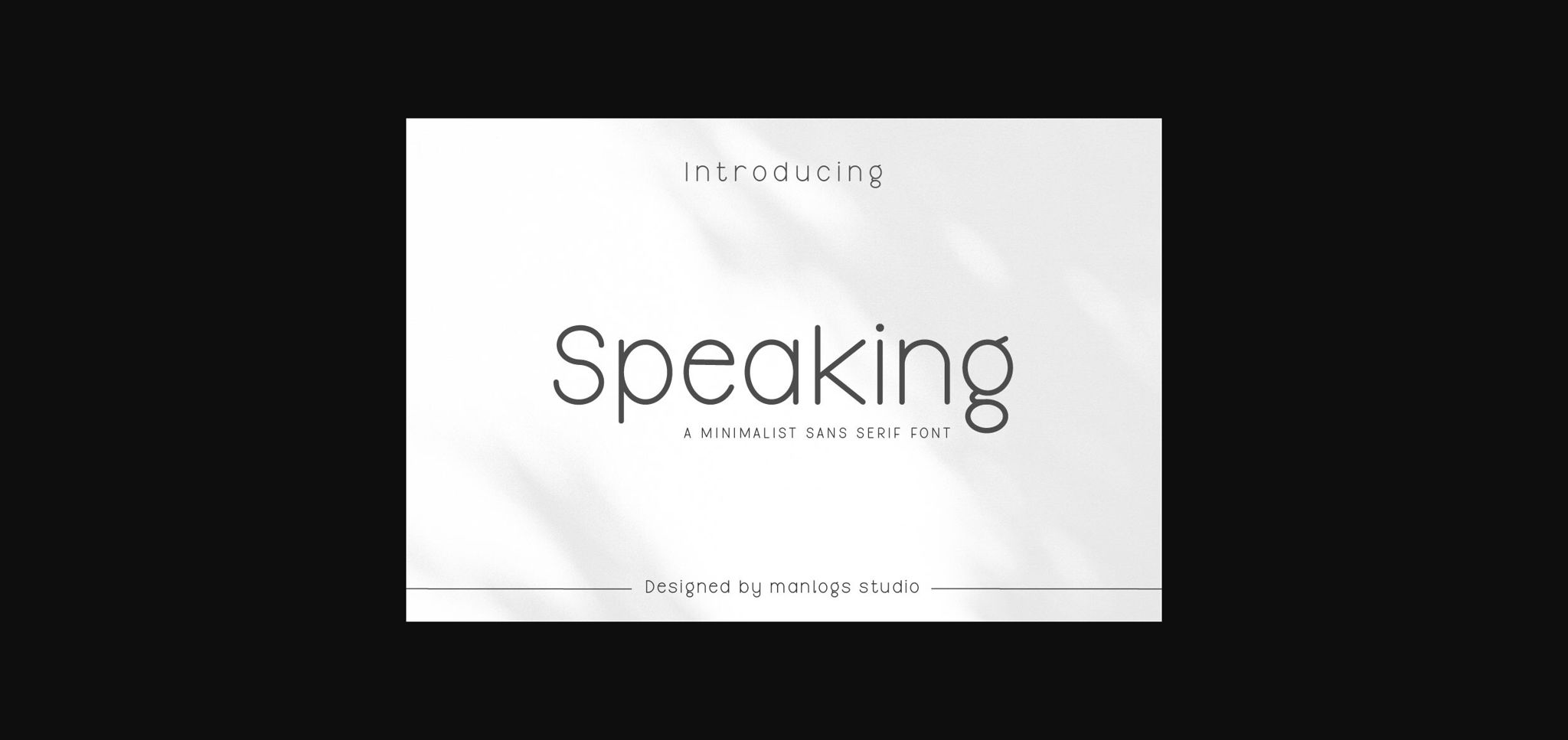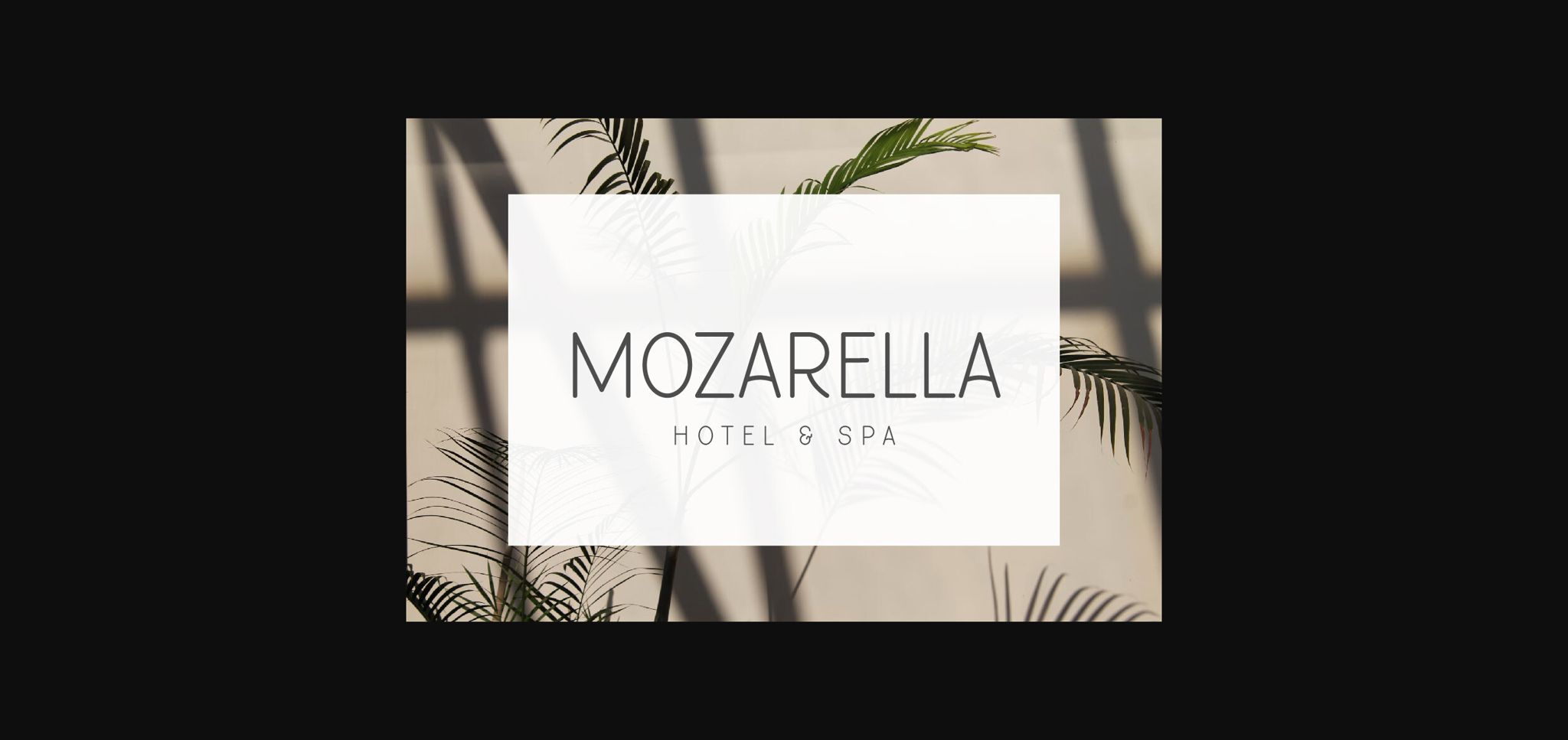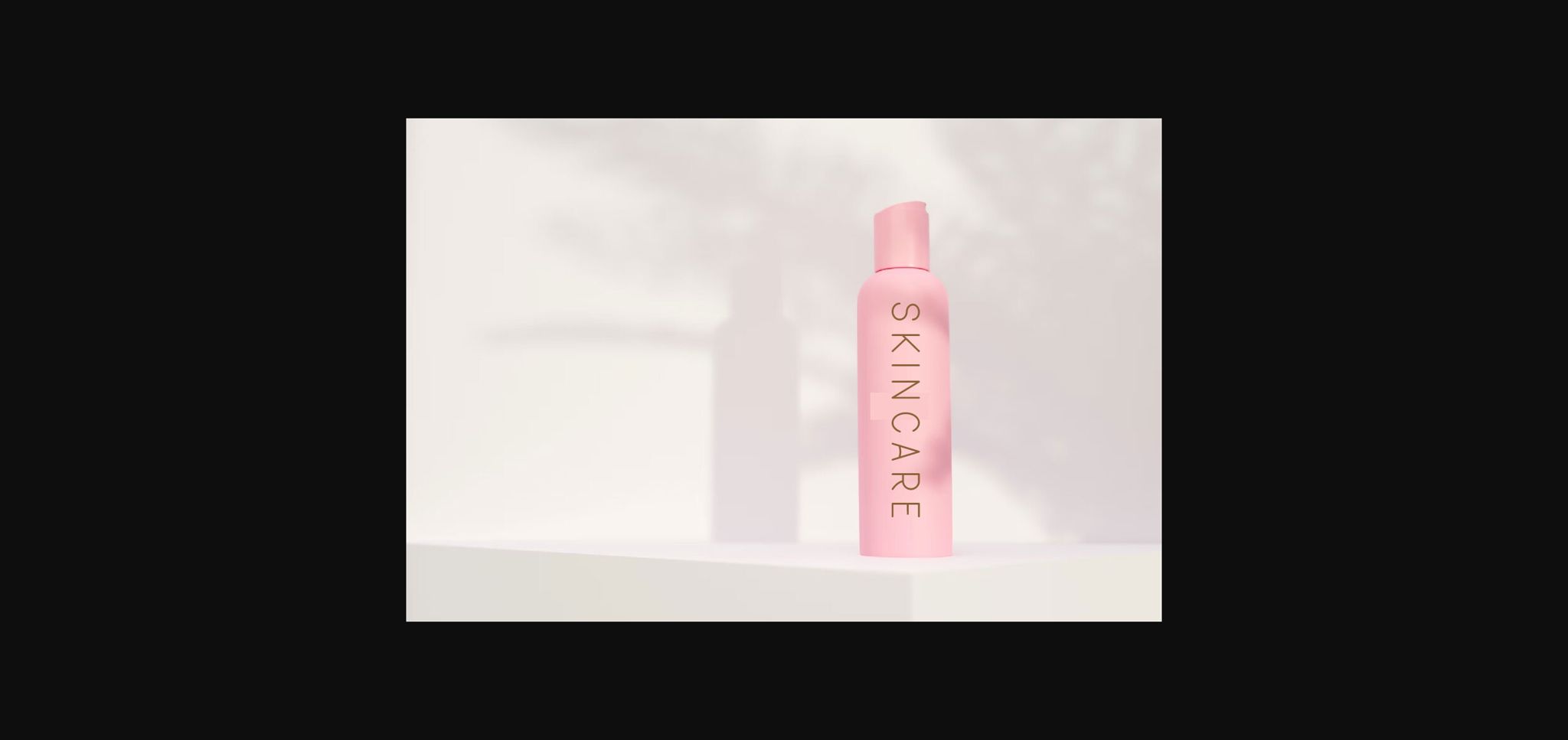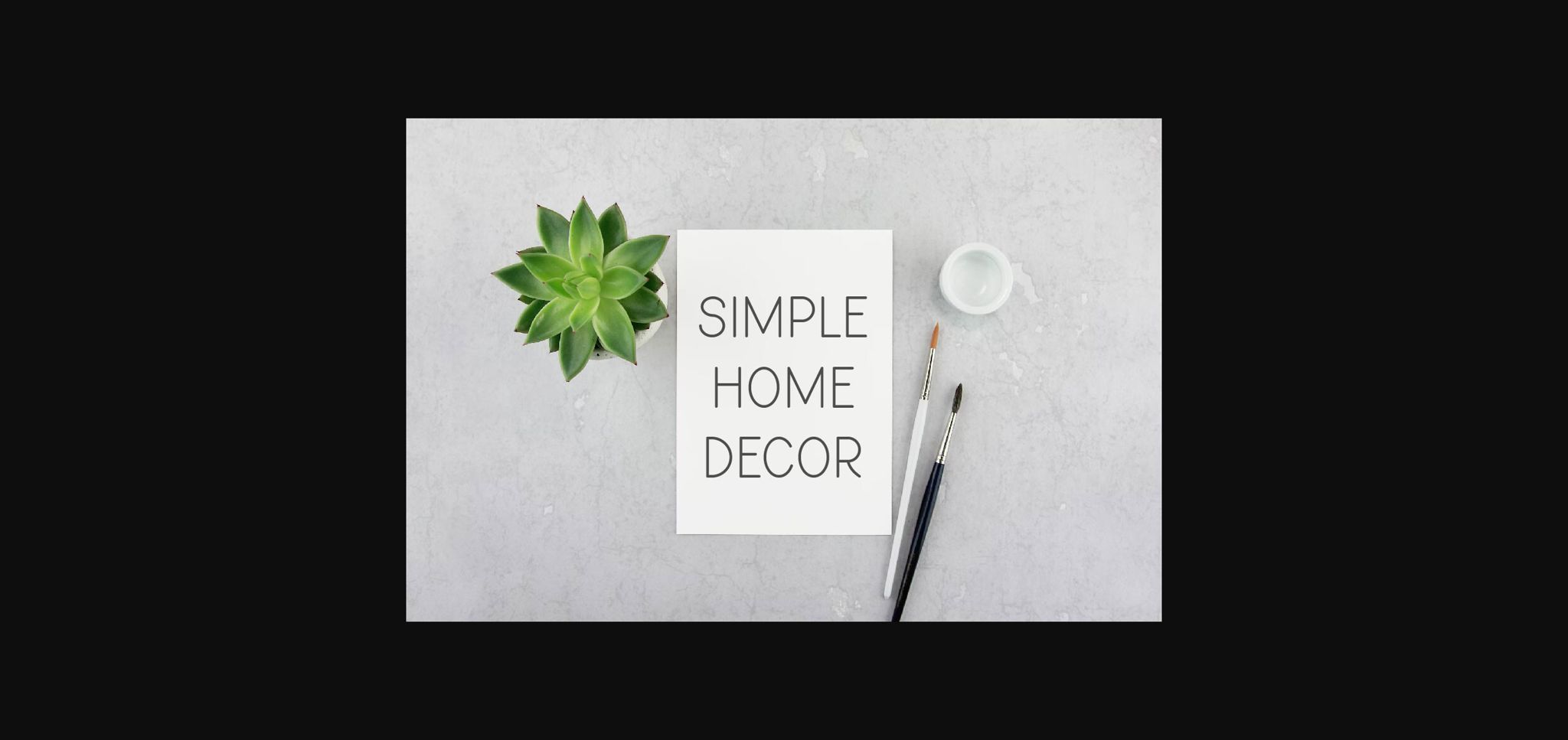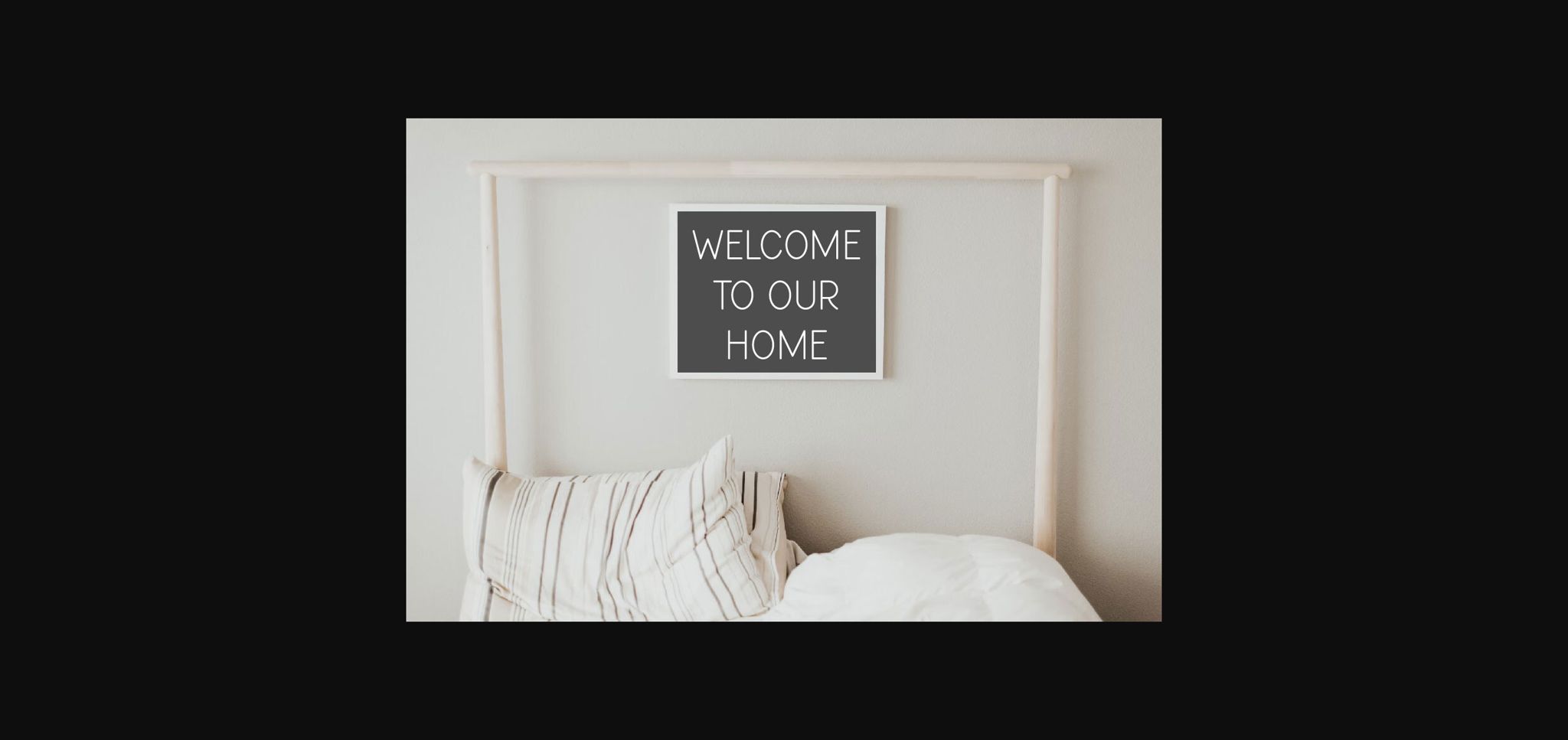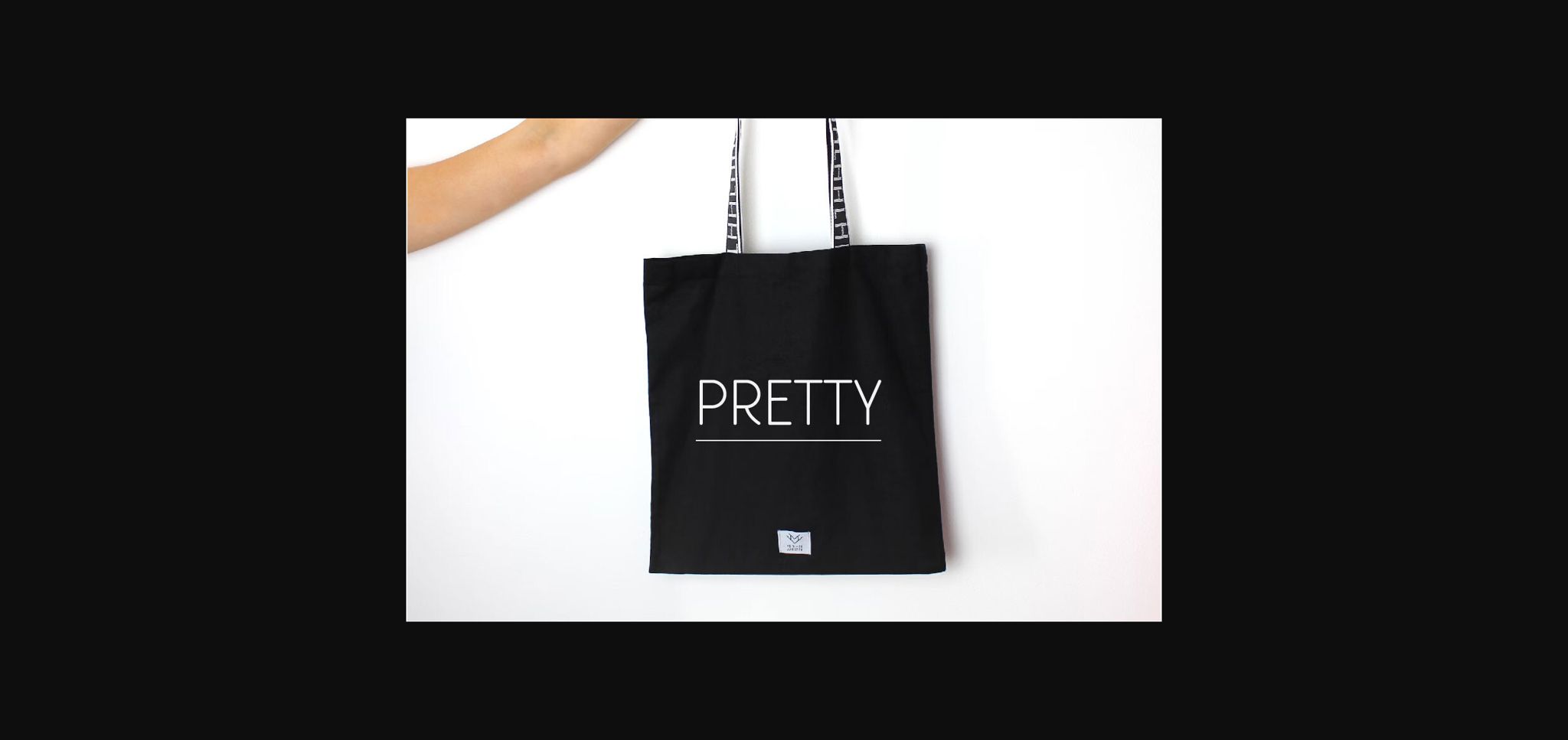
About Speaking Font
Speaking is a simple and modern sans-serif font designed for a clean retro look. With its vintage balanced proportions, this font is perfect for creating a minimalist aesthetic in craft design, product fashion, wedding invitation, tote bag, packaging, tumbler, quotes, t-shirt, gift labels, logos, web design, branding and more!